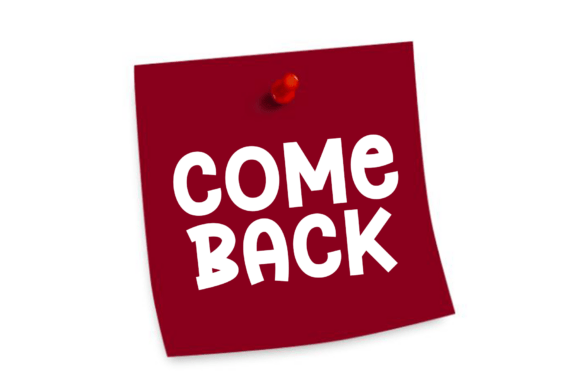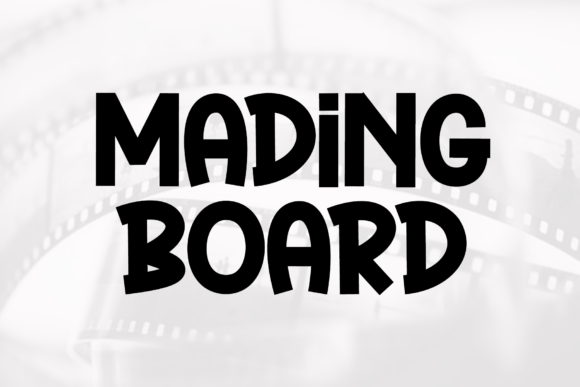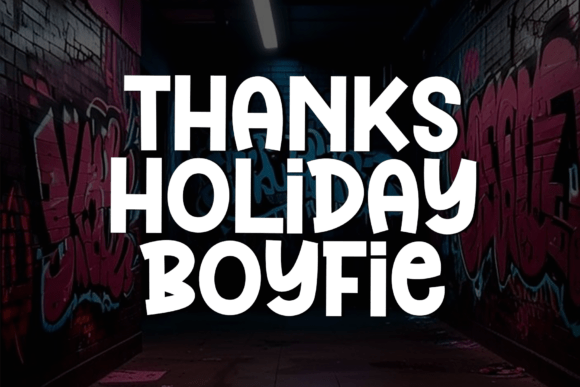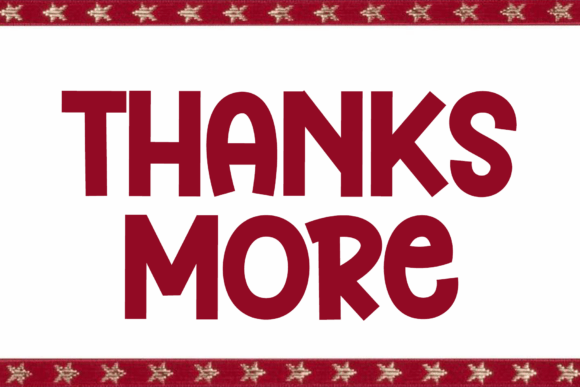
Better Christmas Font: The Ultimate Choice for Holiday Designs
Are you looking for a font that can add a touch of personality and charm to your holiday designs? Look no further than the Better Christmas font. This bold and expressive display font is perfect for creating festive and eye-catching designs that are sure to impress. In this article, we’ll take a closer look at the Better Christmas font, its features, and how you can use it to elevate your holiday designs.
What is Better Christmas Font?
Better Christmas is a bold and expressive display font with a dramatic, almost signature-like presence. It features a unique flared style with thick vertical strokes and sweeping horizontals, giving it a confident and heartfelt appearance. This typeface is perfect for family-themed designs, personalized gifts, custom greeting cards, strong titles, and any project that requires a charismatic, genuine, and impactful handwritten touch.
Key Features of Better Christmas Font
- Unique Flared Style: The Better Christmas font features a unique flared style that sets it apart from other fonts. The thick vertical strokes and sweeping horizontals give it a confident and heartfelt appearance.
- Bold and Expressive: This font is bold and expressive, making it perfect for creating eye-catching designs that are sure to grab attention.
- Handwritten Touch: The Better Christmas font has a charismatic, genuine, and impactful handwritten touch that makes it perfect for family-themed designs and personalized gifts.
- Versatile: This font is versatile and can be used for a variety of projects, including custom greeting cards, strong titles, and more.
Why Choose Better Christmas Font?
There are many reasons why you should choose the Better Christmas font for your holiday designs. Here are a few:
- Stand Out from the Crowd: The Better Christmas font is unique and eye-catching, making it perfect for designers who want to stand out from the crowd.
- Easy to Read: Despite its bold and expressive style, the Better Christmas font is easy to read, making it perfect for designs that require a clear and concise message.
- Customizable: This font is customizable, allowing you to adjust the size, color, and style to fit your design needs.
- Time-Saving: The Better Christmas font is a time-saving solution for designers who want to create professional-looking designs quickly and easily.
How to Use Better Christmas Font in Your Designs
Using the Better Christmas font in your designs is easy. Here are a few tips to get you started:
- Pair it with Other Fonts: The Better Christmas font pairs well with other fonts, including serif and sans-serif fonts. Experiment with different font combinations to find the perfect look for your design.
- Use it for Headlines: The Better Christmas font is perfect for headlines and titles. Use it to create eye-catching headings that grab attention.
- Add it to Your Social Media Posts: The Better Christmas font is perfect for social media posts. Use it to add a touch of personality and charm to your holiday messages.
- Use it for Custom Greeting Cards: The Better Christmas font is perfect for custom greeting cards. Use it to create personalized and heartfelt messages for your loved ones.
If you’re a designer or crafter looking to use the Better Christmas font in your designs, here are a few tips to keep in mind:
- Experiment with Different Colors: The Better Christmas font looks great in a variety of colors. Experiment with different colors to find the perfect look for your design.
- Use it for DIY Projects: The Better Christmas font is perfect for DIY projects, including custom signs, decorations, and more.
- Pair it with Images: The Better Christmas font pairs well with images, including photos and illustrations. Use it to create eye-catching designs that tell a story.
The Better Christmas font is a bold and expressive display font that’s perfect for holiday designs. Its unique flared style, bold and expressive appearance, and handwritten touch make it a versatile font that can be used for a variety of projects. Whether you’re a designer or crafter, the Better Christmas font is a great choice for adding a touch of personality and charm to your designs. So why wait? Download the Better Christmas font today and start creating festive and eye-catching designs that are sure to impress.